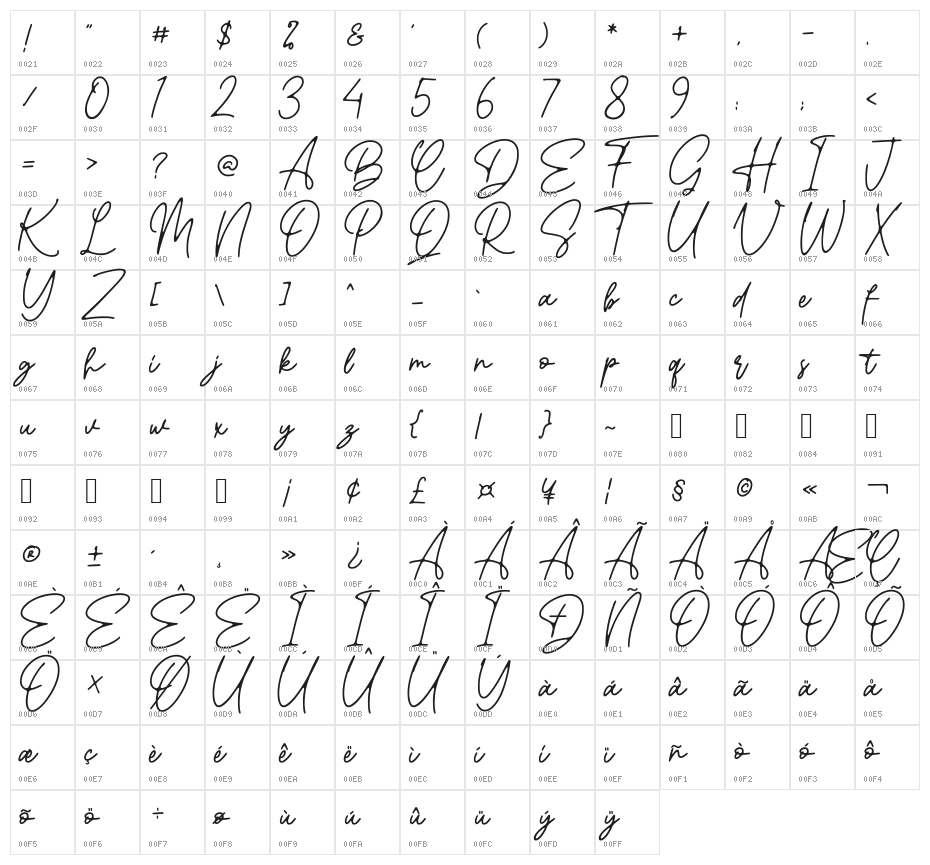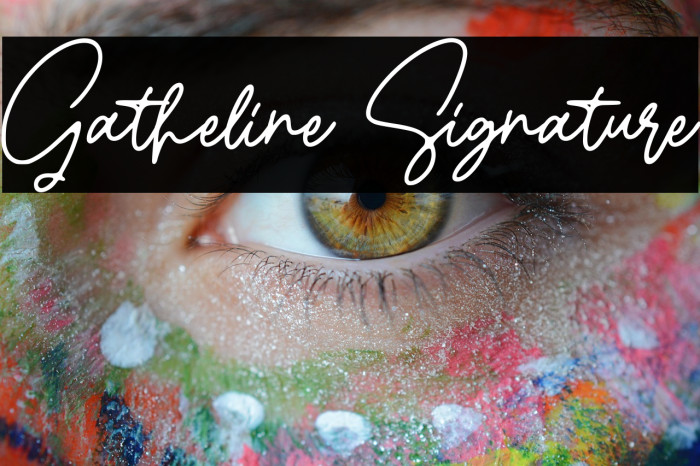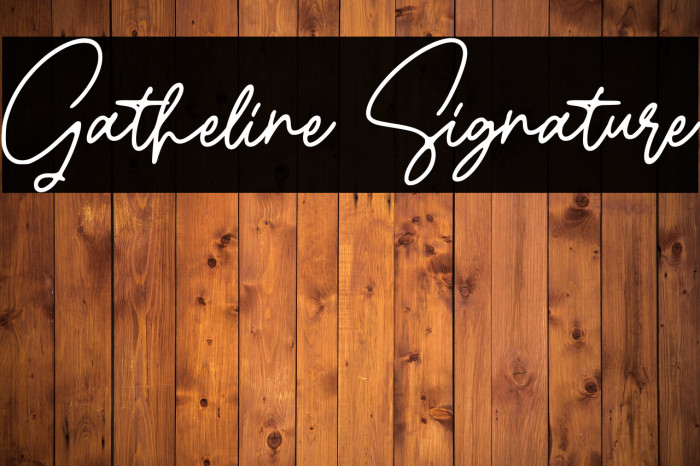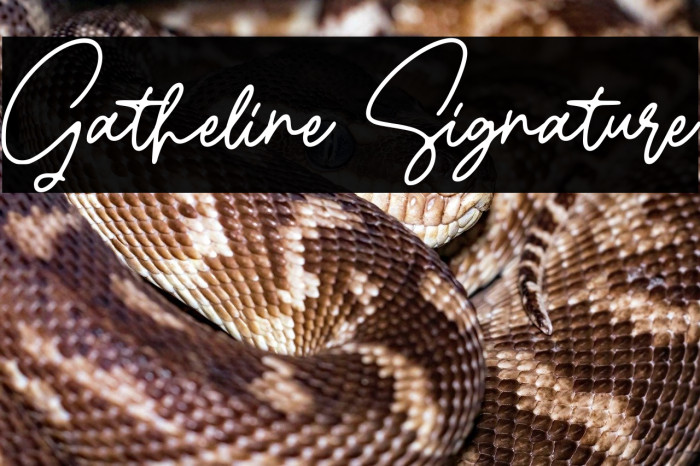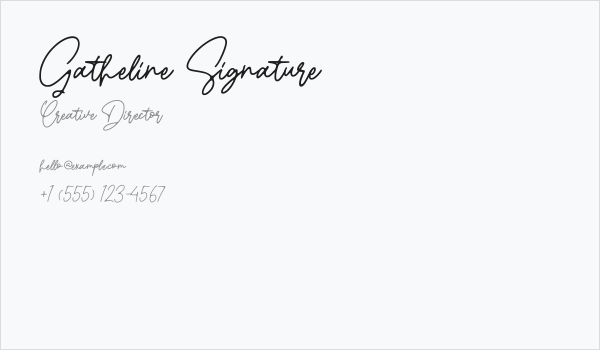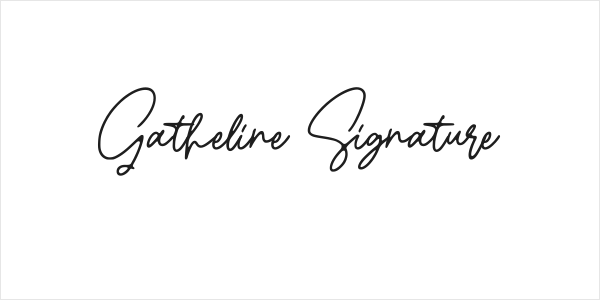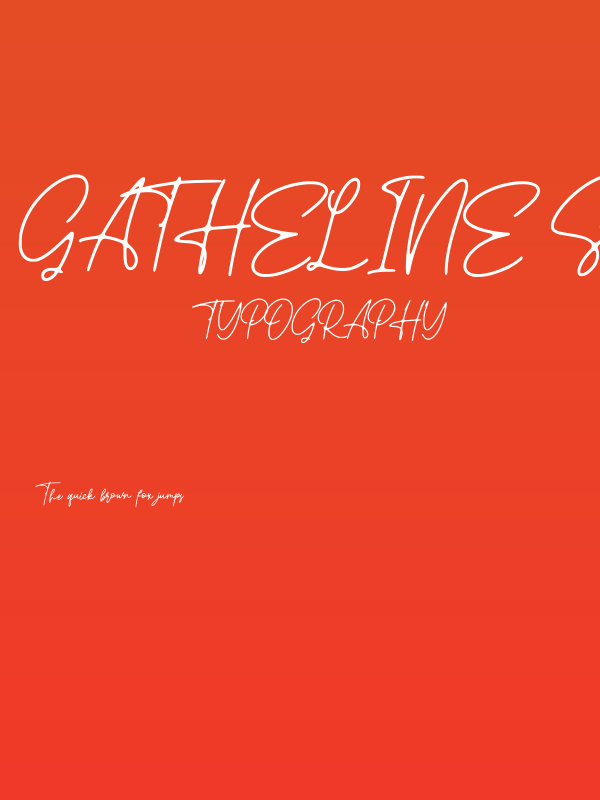
Gatheline Signature Font
Gatheline Signature Description
This font exudes elegance and fluidity, characterized by its cursive, handwritten style. The uppercase letters are gracefully elongated, with smooth, flowing lines that create a sense of movement and sophistication. The lowercase letters maintain a consistent style, offering a seamless blend between characters. Numbers and special characters are crafted with the same attention to detail, ensuring a cohesive look across all elements. The overall design is both stylish and legible, making it suitable for a variety of creative applications. Its delicate strokes and artistic flair make it ideal for projects that require a personal touch.
| Overall Style | Elegant, Artistic |
| Proposed Projects | Ideal for wedding invitations, personal branding, signature logos, and elegant stationery. |